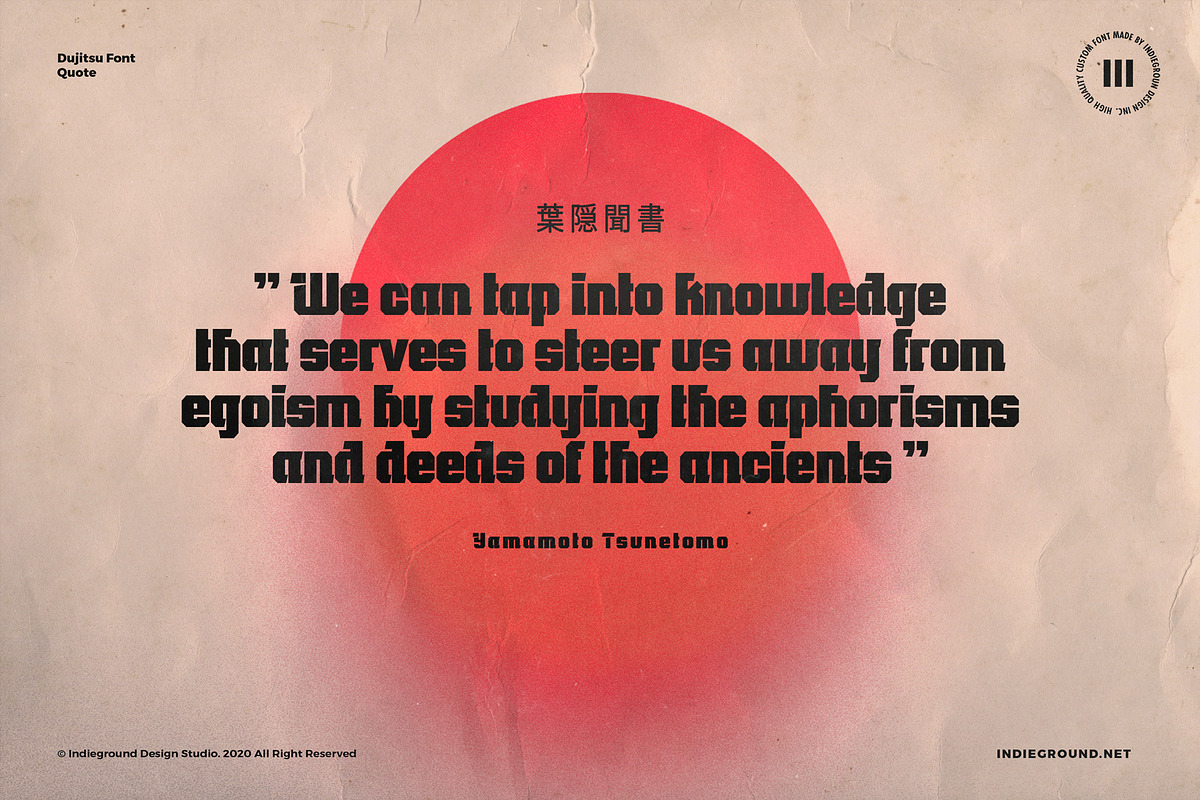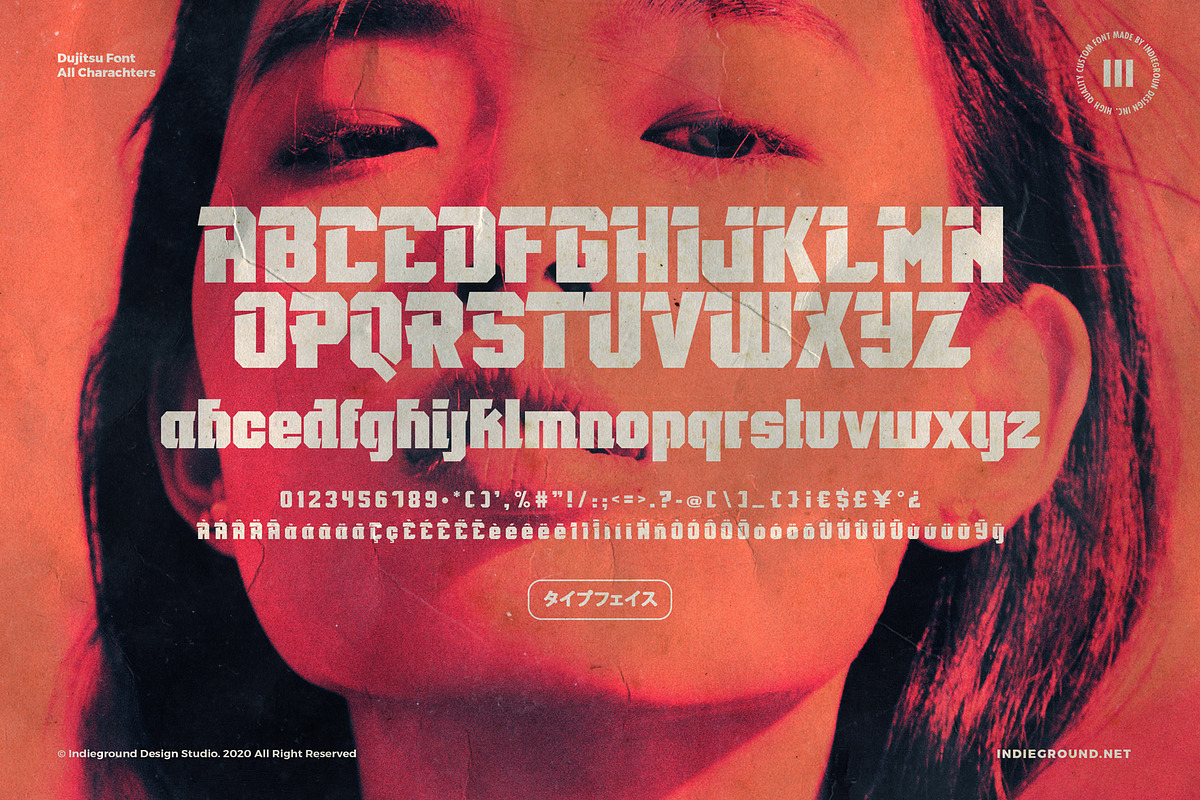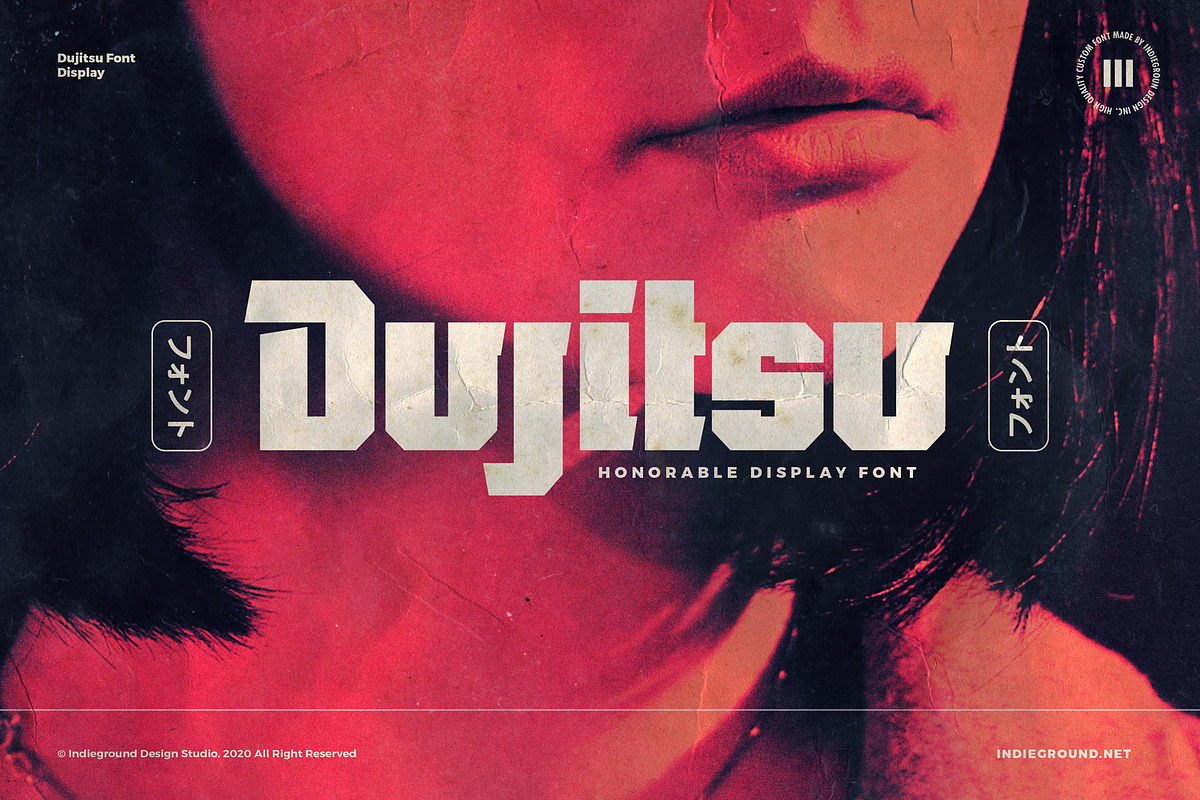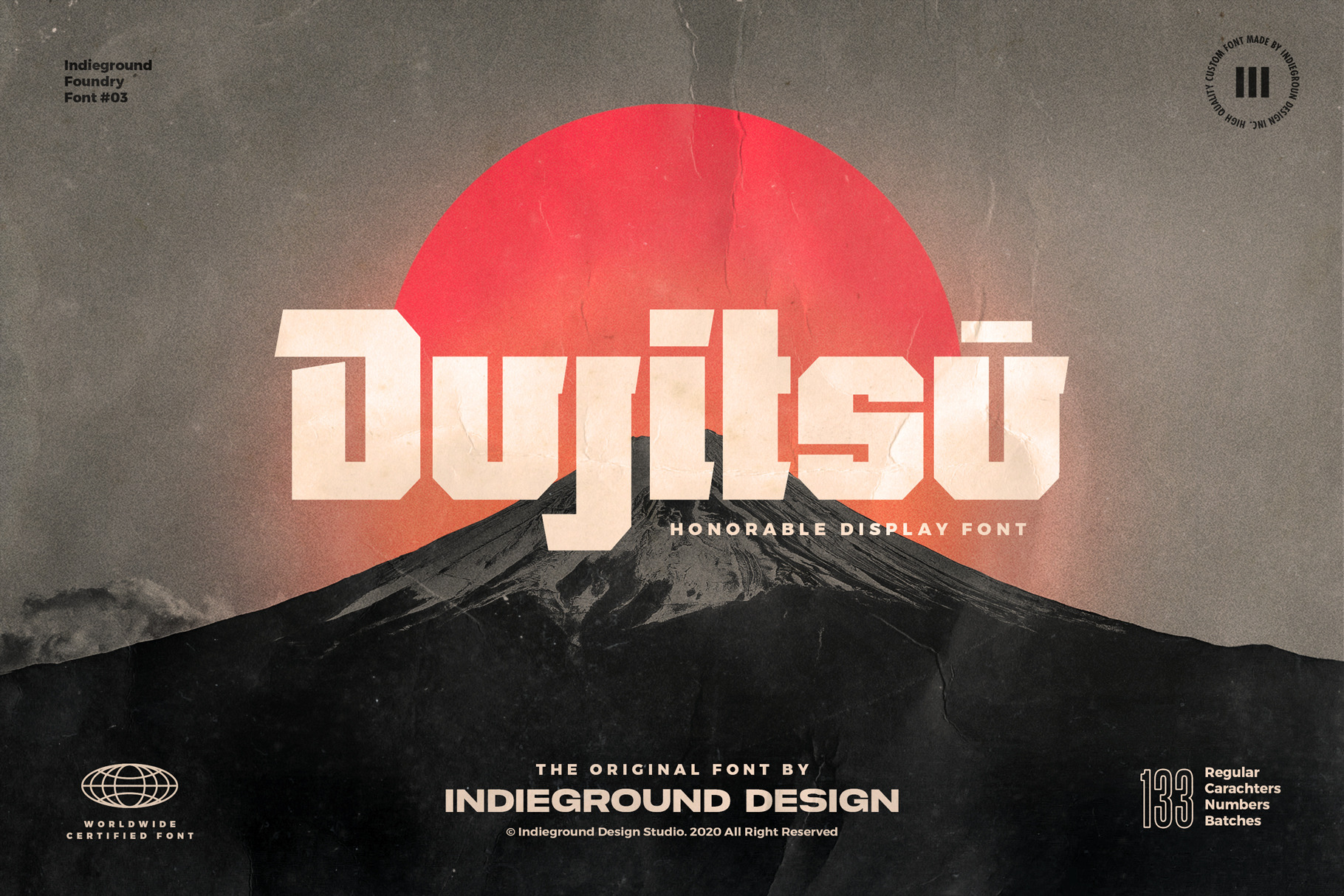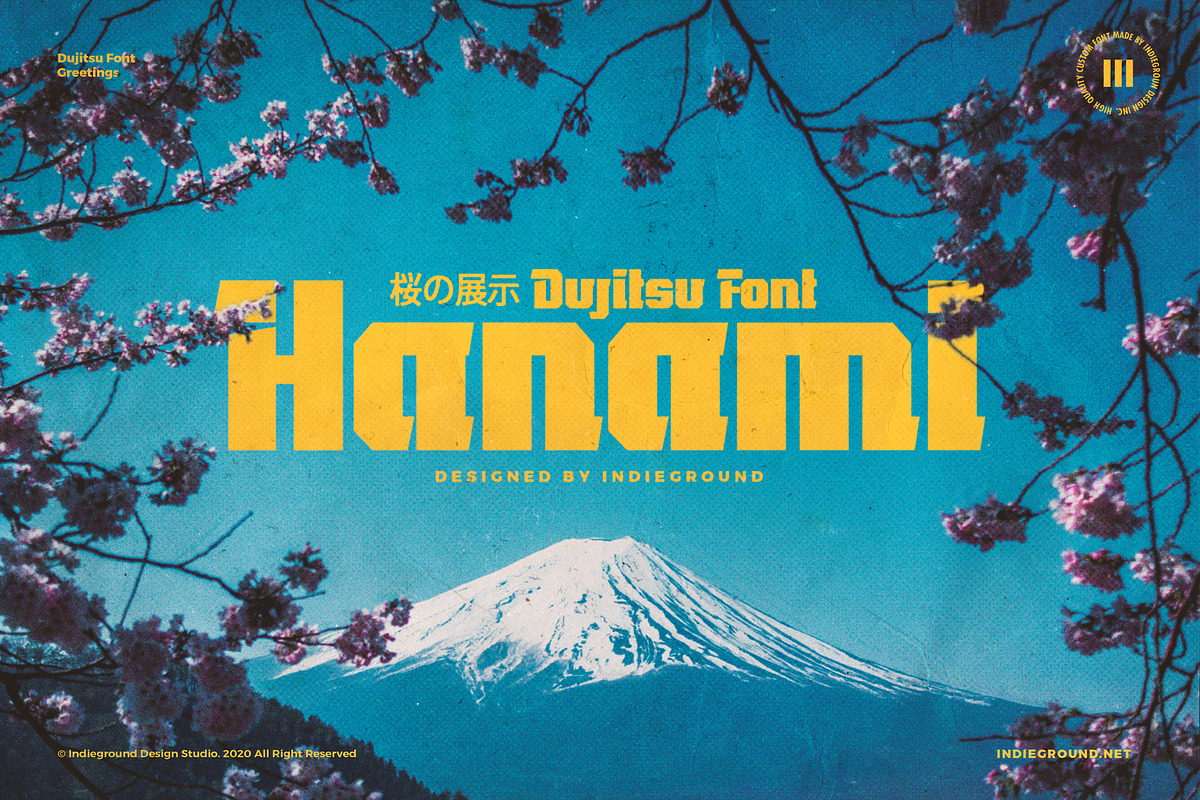
Dujitsu Font
Dujitsu Font by Indieground This Japan-inspired display font made by the Indieground Team is perfect for your heavy titles. It gives an oriental style to the typography of your artworks. This regular commercial version includes the full characters set shown in the preview.